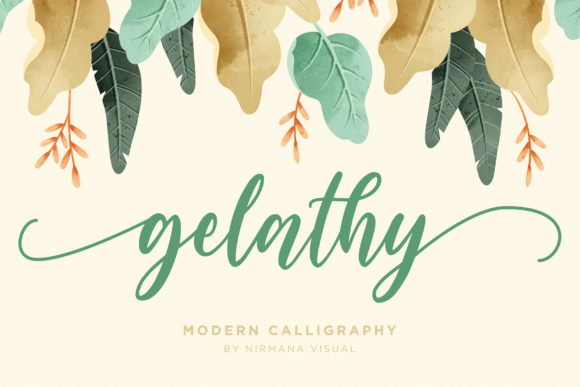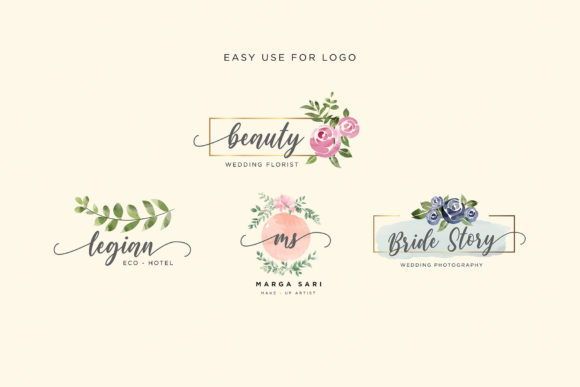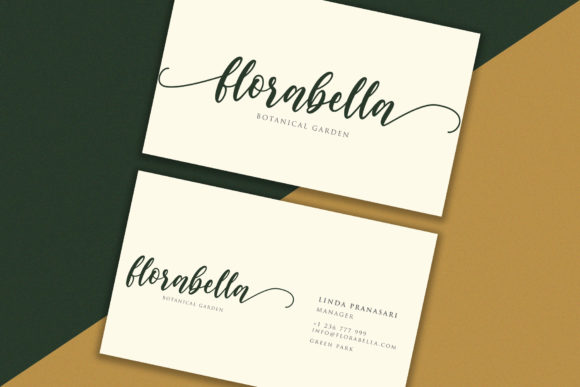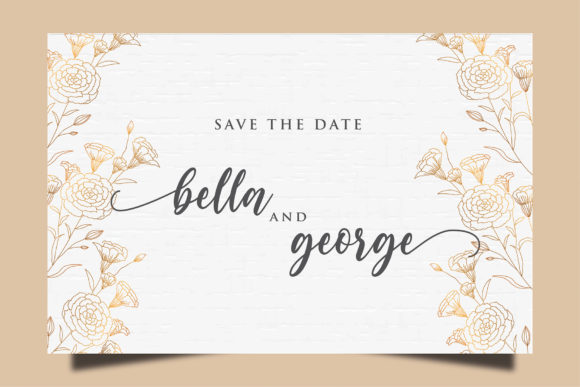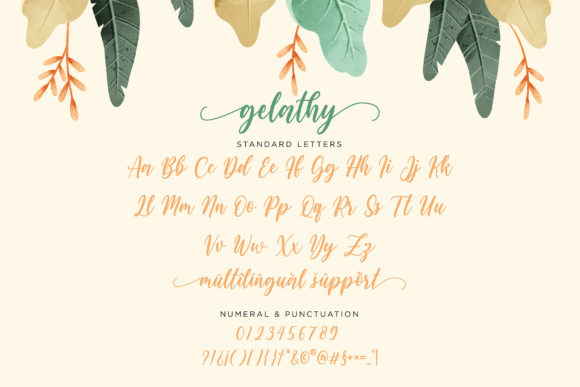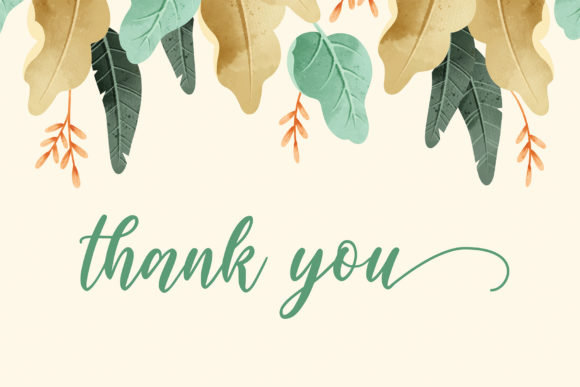
Gelathy Font
About Gelathy Font
Gelathy is a beautiful script font carefully created with a touch of romance. This is a beautiful combination of timeless elegance and authentic calligraphy.